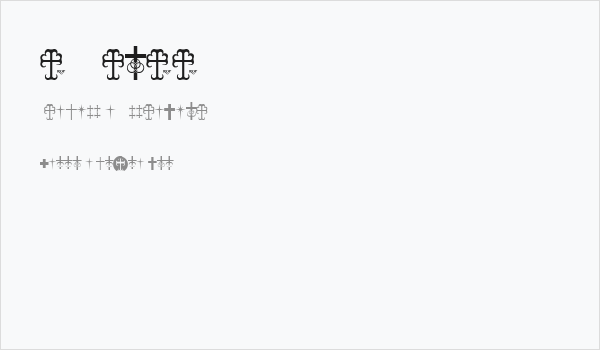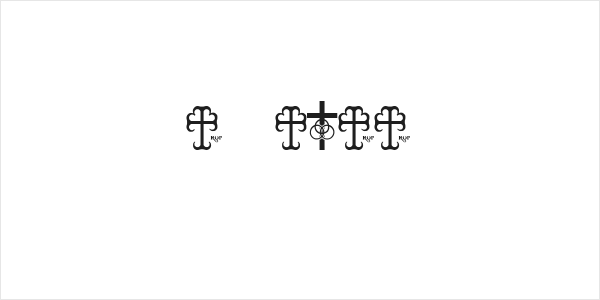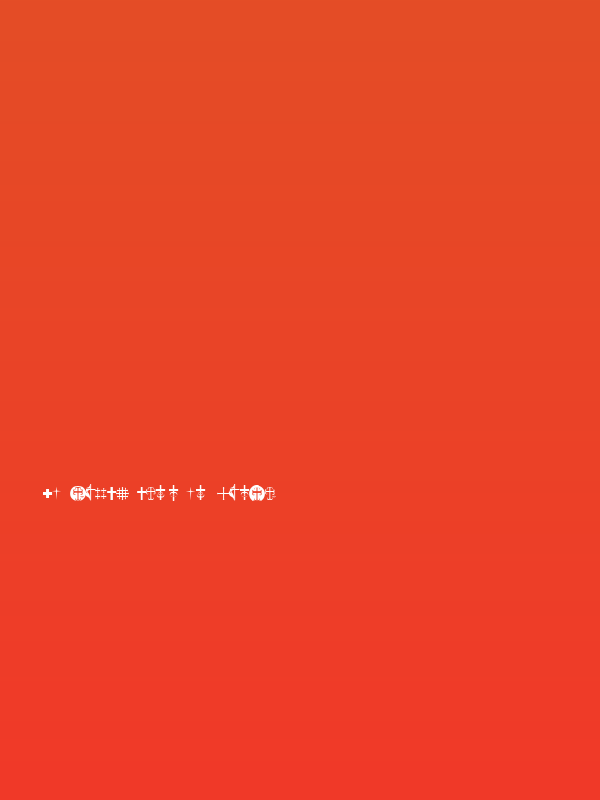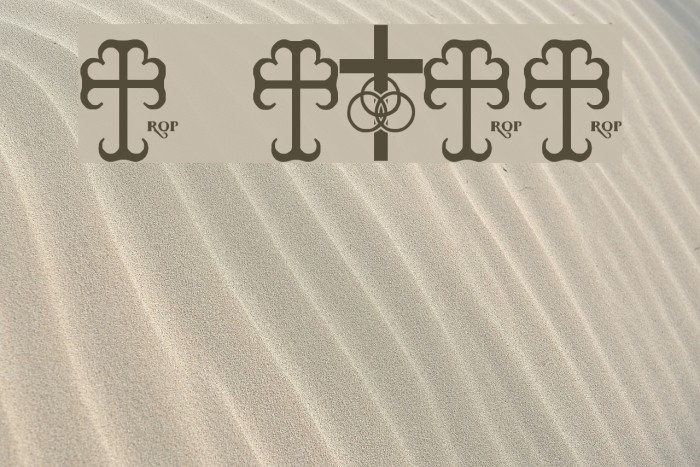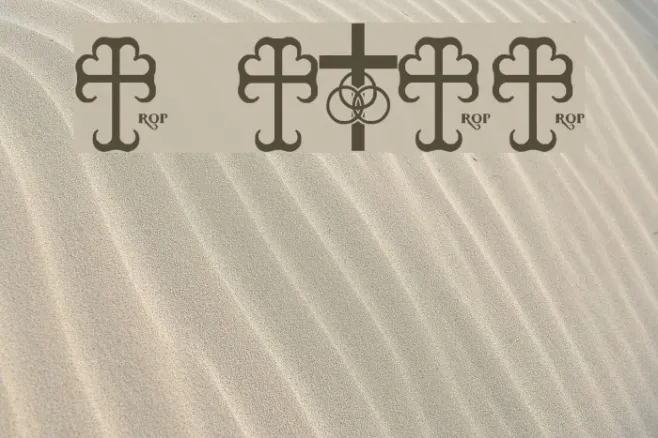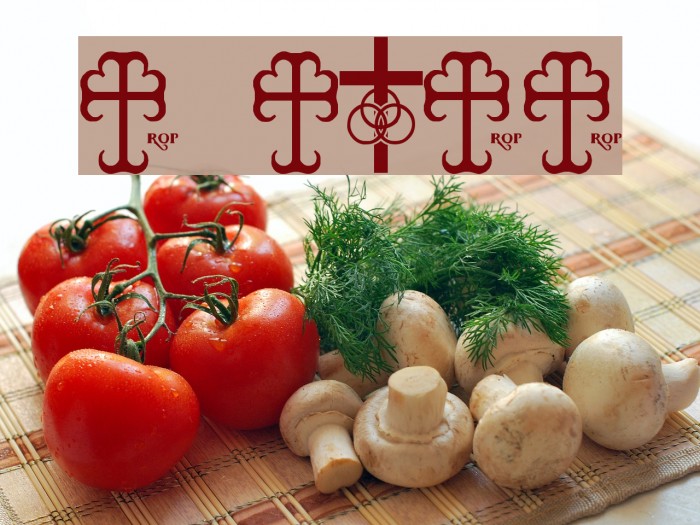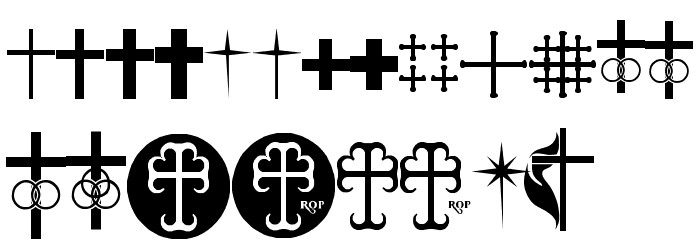
sB Cross Font
sB Cross Description
A decorative symbol font featuring a variety of cross designs, including simple, bold, ornate, and stylized crosses, as well as crosses combined with rings, stars, and circular backgrounds. Some glyphs incorporate additional elements like 'RIP' text and ornamental flourishes.
| Overall Style | Decorative, Religious, Symbolic |
| Use Case | Logos, Decorative elements, Themed graphics |
| Proposed Projects | Religious materials, memorial cards, event programs, decorative headings, spiritual branding. |